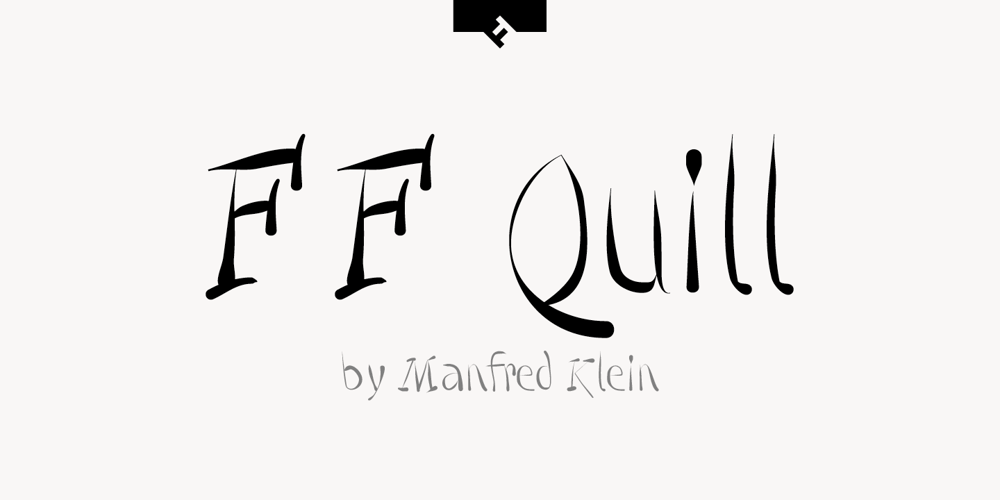
FF Quill
FF Quill font
FF Quill Font Family was designed by Manfred Klein and published by FontFont. FF Quill contains 3 styles and family package options. German type designer Manfred Klein created this script FontFont in 1994. The family contains 3 weights: Light, Demi, and Extra and is ideally suited for advertising and packaging, festive occasions, film and tv as well as poster and billboards. FF Quill provides advanced typographical support with features such as ligatures and case-sensitive forms. It comes with proportional oldstyle figures.